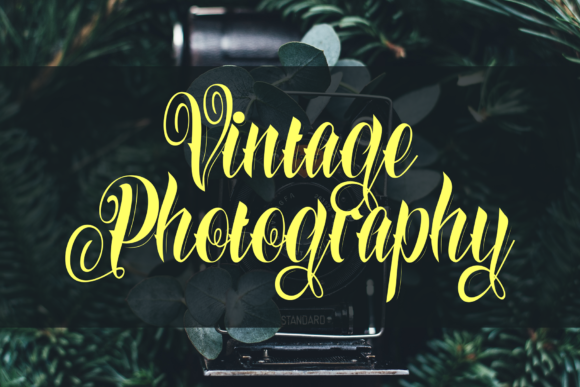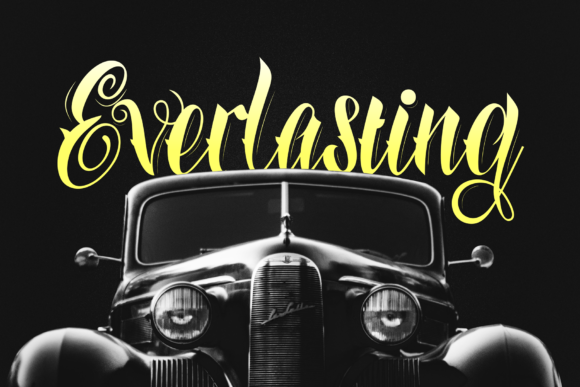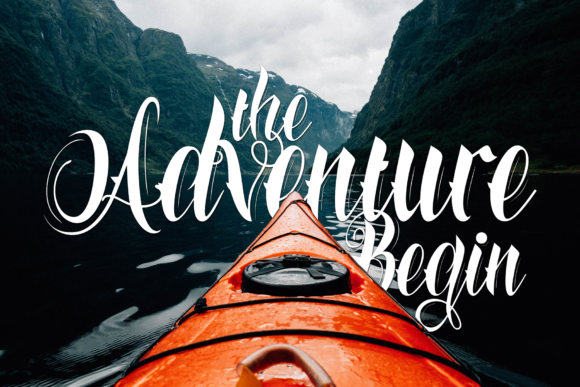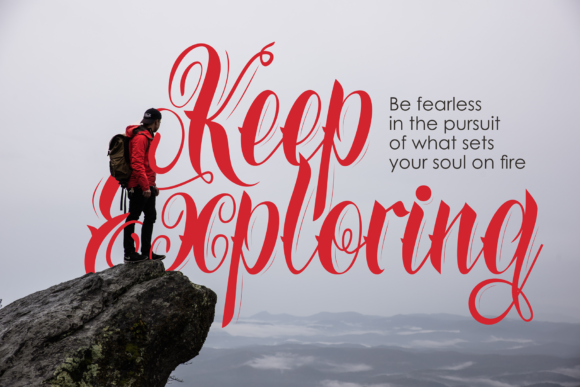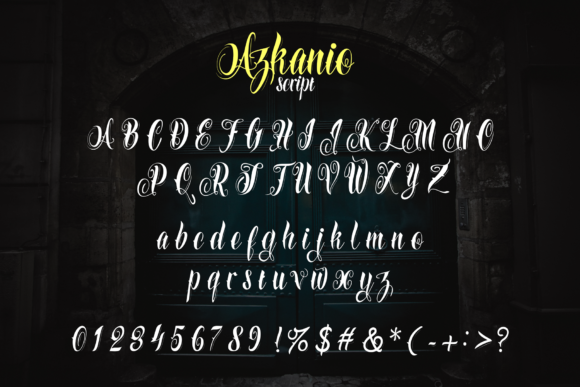
The Perfect Script to Elevate Your Designs
Remember that moment when you had a spark of creativity and knew exactly what you wanted to create? Maybe it was a beautiful logo, a stunning invitation, or a captivating advertisement. Whatever it was, you wanted it to stand out and leave a lasting impression. That’s exactly what the Azkanio Script Font is designed to do – add a touch of elegance and sophistication to your designs.
With its unique style and bold feel, Azkanio Script Font is the perfect addition to any design project. This charming script is not just a font, but a statement piece that can elevate your work and make it truly unforgettable. Whether you’re a seasoned designer or just starting out, Azkanio Script Font is a valuable tool that can help you create designs that truly shine.
Azkanio Script Font Key Features
- Unique Characteristics: Azkanio Script Font features a unique, hand-drawn design with a flowing script style, perfect for adding a touch of elegance and sophistication to your designs.
Azkanio Script Font Review
Overall, I think Azkanio Script is a beautiful font that can add a touch of elegance to any design project ✨. It’s perfect for creating invitations, posters, or any other material that requires a creative and artistic feel. The font’s flowing lines and subtle flourishes make it a great choice for adding a touch of sophistication to your designs.
- The font’s elegant and artistic feel makes it perfect for creative projects ✨.
- The flowing lines and subtle flourishes add a touch of sophistication to your designs.
- The font is highly customizable, allowing you to adjust the size, color, and spacing to fit your needs.
- The font may be difficult to read at small sizes, especially in print materials ⚠️.
- The font’s flowing lines can make it challenging to align text, especially in justified settings.
- The font may not be suitable for digital materials with a lot of text, as it can be difficult to read at small sizes.
Overall, I think Azkanio Script is a great choice for designers who want to add a touch of elegance to their projects. However, it’s essential to consider the font’s limitations and use it judiciously in your designs.
Azkanio Script Font is perfect for creating elegant and sophisticated designs. To get the most out of it, try using it for:
- Event signage and banners.
Azkanio Script Font is commonly used for:
- Wedding and event invitations.
- Special occasion cards and gifts.